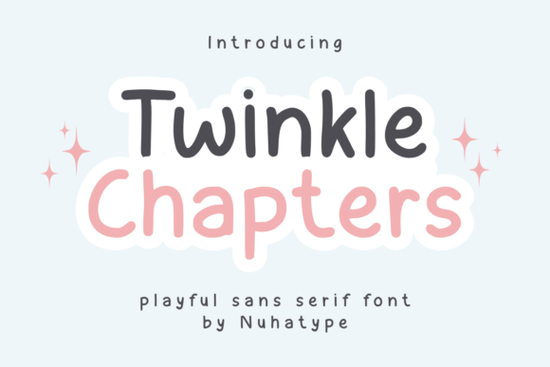
If you're looking for a clean, delicate font that feels personal yet polished, Twinkle Chapter Font is worth exploring. It’s a thin, minimalist sans serif typeface with subtle warmth like handwriting drawn with care on a quiet morning. This style works beautifully in creative projects where simplicity speaks volumes.
What makes Twinkle Chapter Font stand out?
Unlike bolder or overly decorative fonts, Twinkle Chapter keeps things light and intentional. Its fine strokes and gentle curves give it a soft, natural rhythm perfect for designs that aim to feel handmade without the mess. You’ll find it especially useful when working on:
- Planners and daily journals
- Interior layouts for KDP books or printables
- Stickers, labels, and gift tags
- Quotes, affirmations, and inspirational messages
- Crafts like mugs, tote bags, tumblers, and custom cards
It doesn’t shout it whispers. And sometimes, that quiet presence is exactly what your design needs to feel authentic and inviting.
How can I use Twinkle Chapter in my creative work?
Whether you’re designing for personal joy or selling online, this font adapts well across formats. For example:
- For planners: Use it for section headers or daily prompts to add a touch of calm elegance.
- For KDP interiors: Pair it with a slightly bolder companion font (like Blackstone Sans) to create visual contrast while keeping the mood serene.
- For Cricut or Silhouette projects: The thin lines are crisp and precise, making them ideal for vinyl cutouts on water bottles, notebooks, or wall art.
You don’t need a lot of space to make an impact. A single line of text in Twinkle Chapter can anchor a layout, draw attention, or add emotional depth.
Final thoughts: When to choose Twinkle Chapter
Choose this font when you want your design to feel intentional, soft, and human. It’s not flashy but that’s its strength. If your goal is to create something meaningful rather than loud, Twinkle Chapter fits right in.